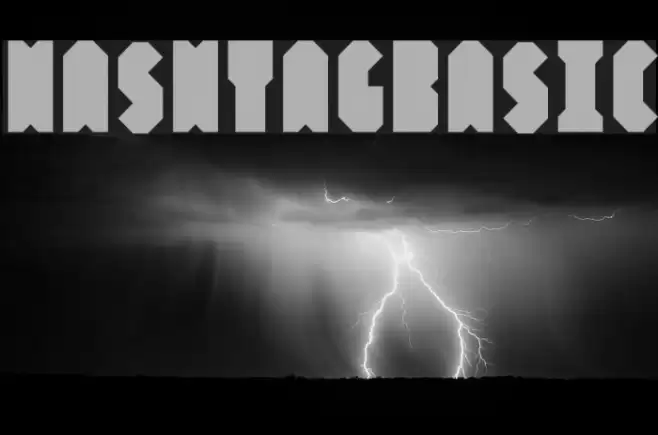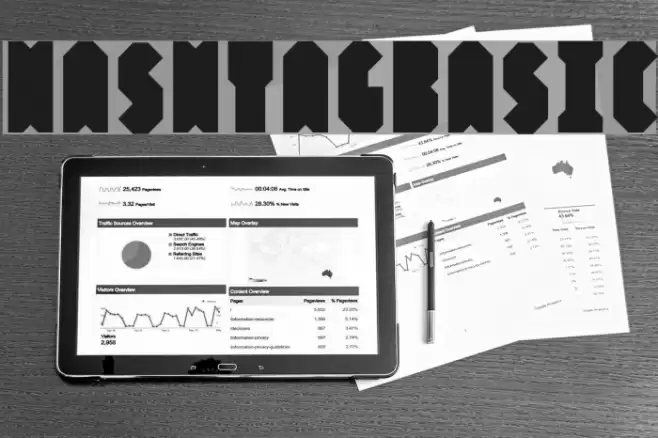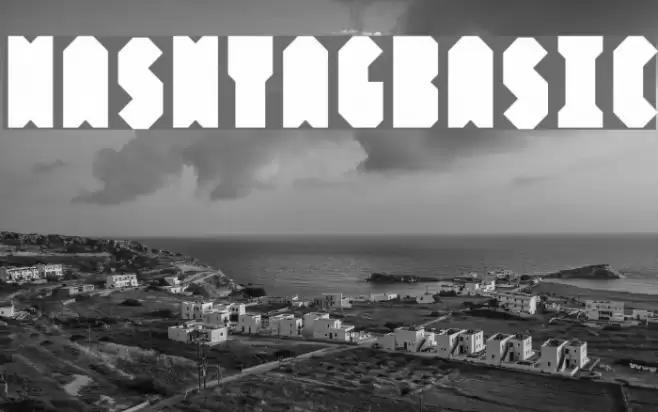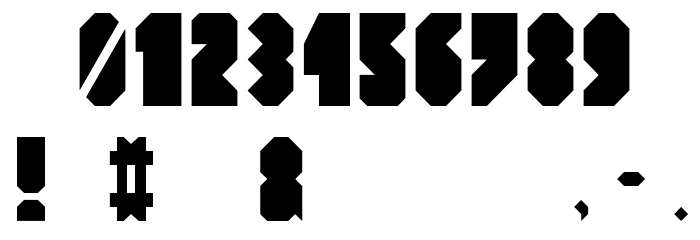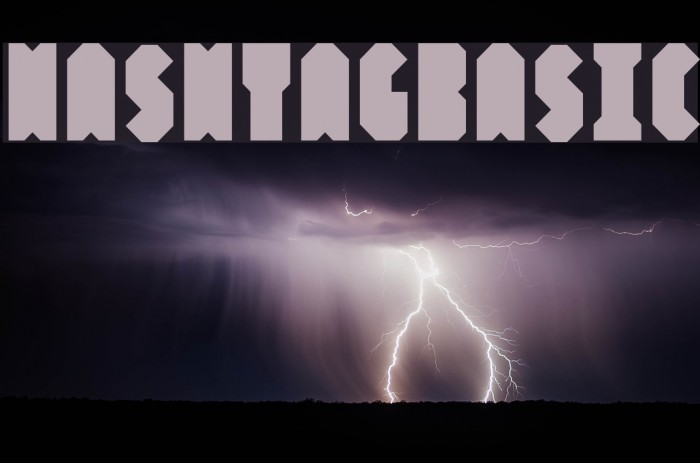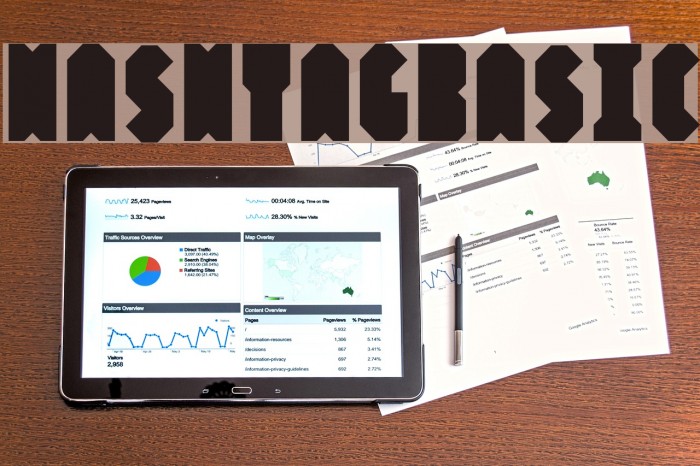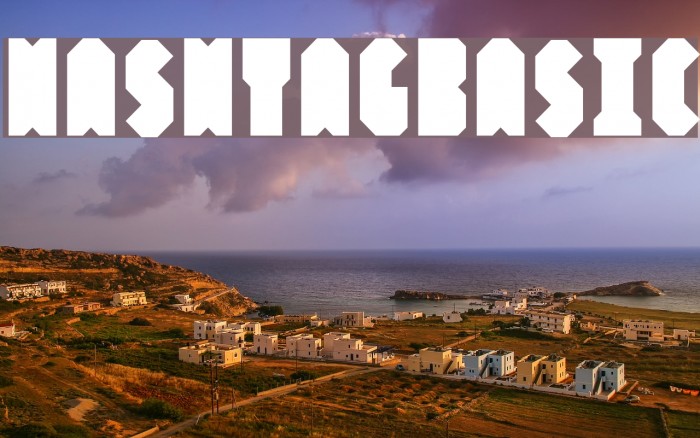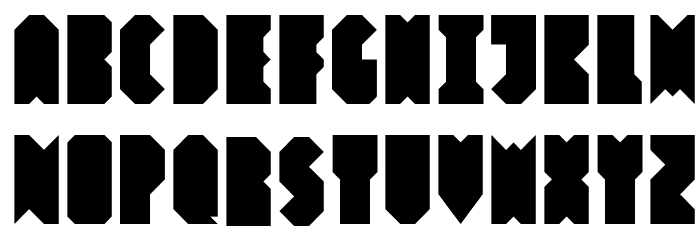
HashtagBasic Font
HashtagBasic Description
This font features a bold, geometric design with a strong emphasis on angular shapes and solid fills. Each character is constructed with sharp edges and a blocky appearance, giving it a distinct and powerful presence. The uppercase and lowercase letters share a consistent style, maintaining the same width and height, which contributes to a uniform look across the text. Numbers and special characters are designed to match the boldness and geometric nature of the alphabet, ensuring a cohesive visual experience. The font's high contrast between the thick strokes and the negative space enhances its readability, making it suitable for impactful and eye-catching designs.
A bold, geometric font with angular shapes and high contrast, ideal for striking designs from Futuristic fonts.
- Proposed Projects: This font is perfect for poster designs, branding projects, and any creative work that requires a strong visual impact. It can be used effectively in logos, headlines, and promotional materials where attention-grabbing typography is essential.